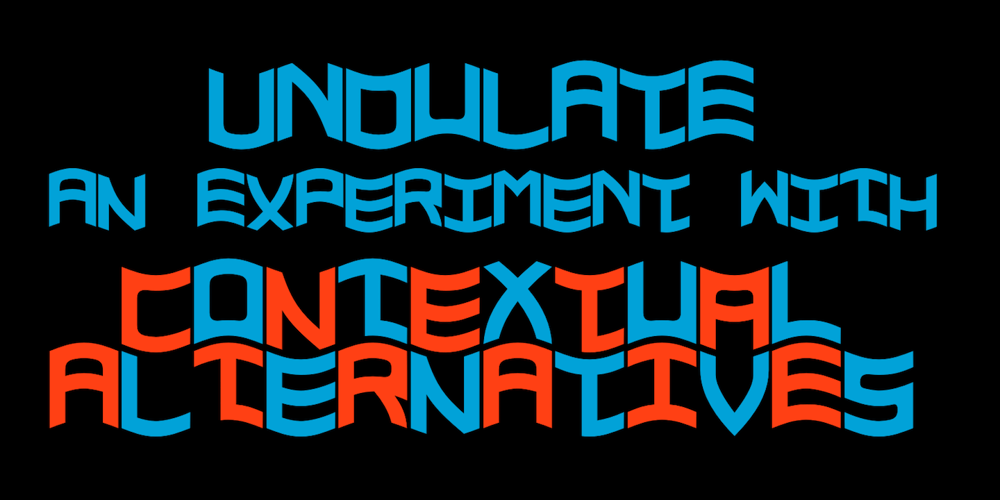
Undulate Font Family was designed by Robert Schenk and published by Ingrimayne Type. Undulate contains 2 styles and family package options. Undulate was designed as an alternating-letter font in which two sets of characters alternate. The alternating is done automatically in applications that support the OpenType feature contextual alternatives (calt). Some individual characters look strange in isolation but they fit into a wave-like pattern in which shapes that bulge up alternate with shapes that bulge down.Undulate has monospaced and monoline letters. The letter spacing is very tight to accentuate the ripple pattern. The family includes an outline style that can be used in a layer above the regular style to add color. Undulate was not designed for any particular use but as a challenge to fit letters into a particular geometric shape. The unusual patterns that a result are eye-catching and may be useful for advertising or signage and in other places where one wants attention-grabbing lettering.